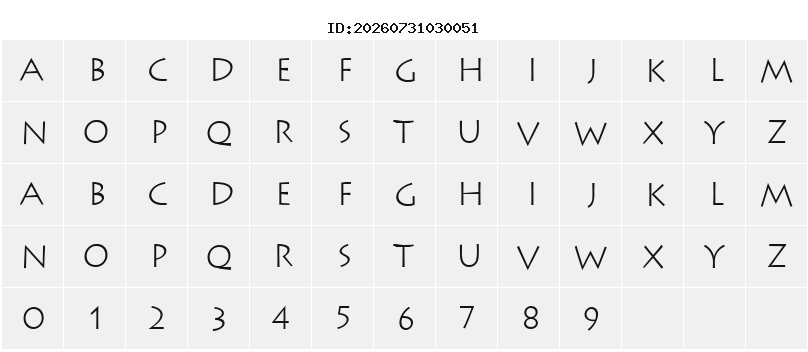
LithographLight Preview
• Font Name: LithographLight
• Full Font Name: LithographLight
About LithographLight.ttf
LithographLight.ttf is a modern, elegant sans-serif font designed for ultimate readability and visual harmony. Perfect for branding, headlines, web design, and print materials.